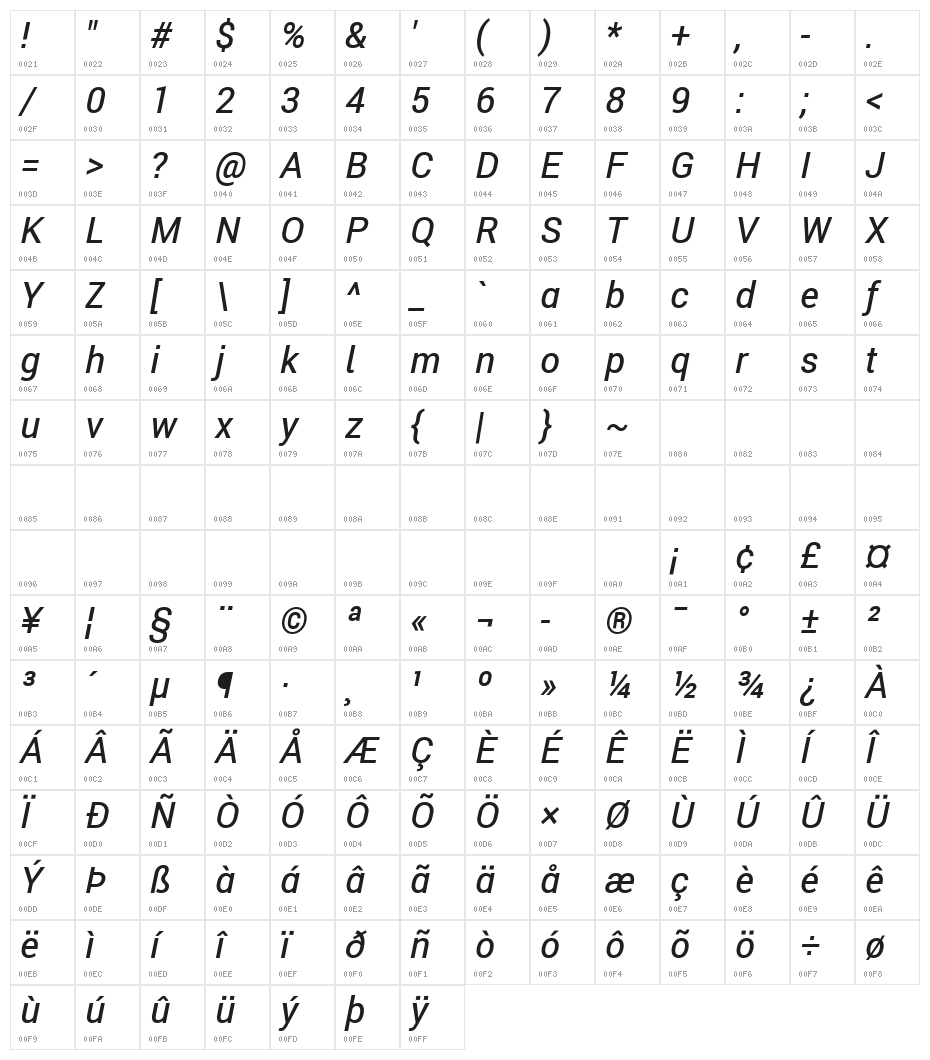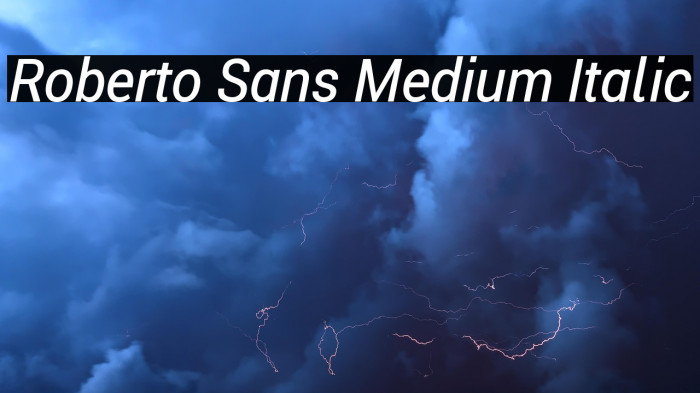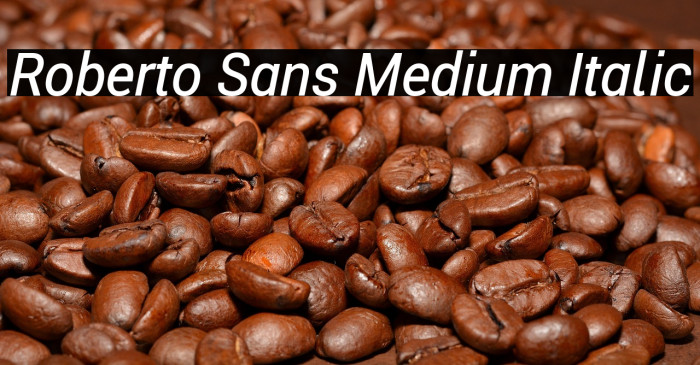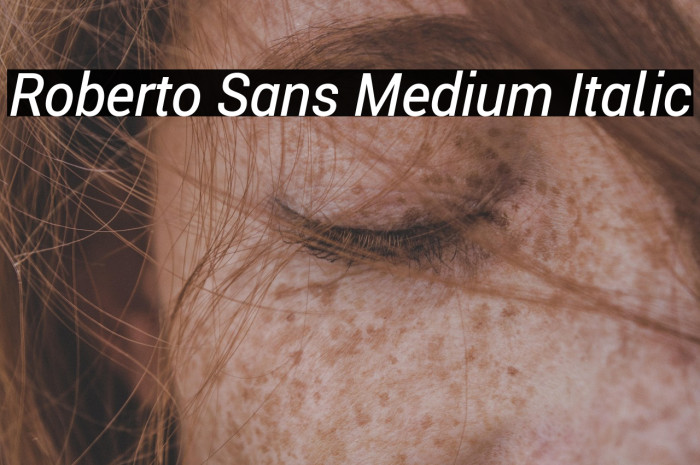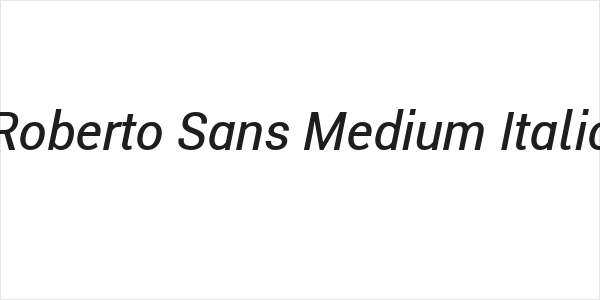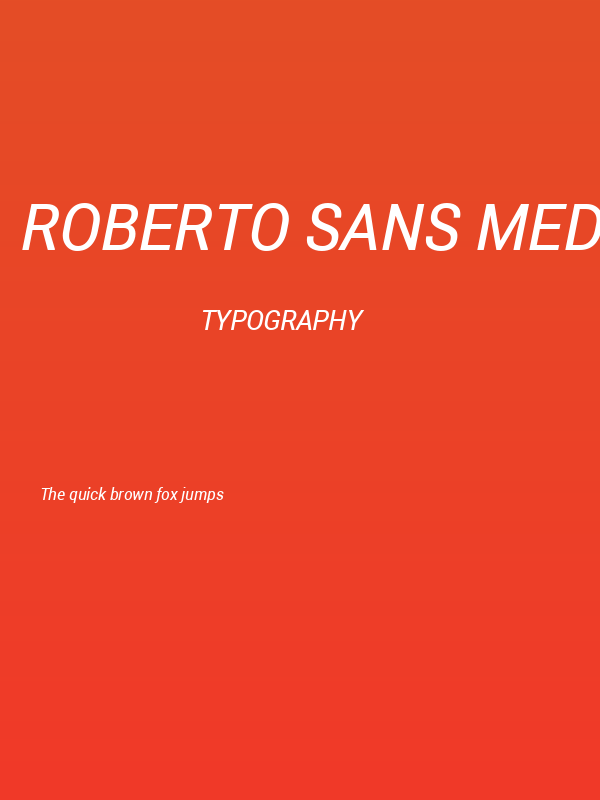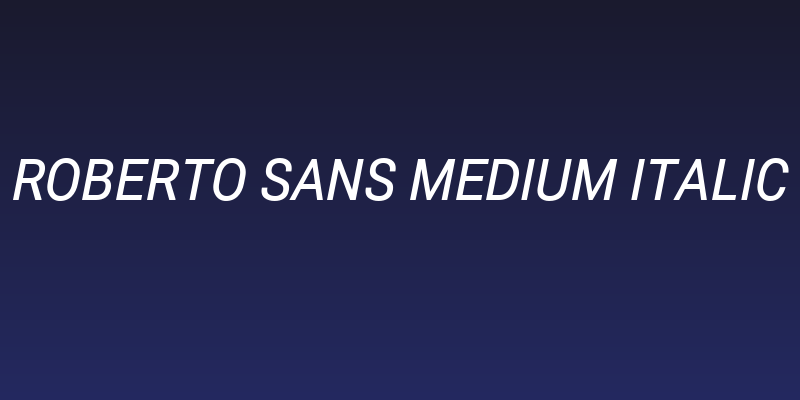
Roberto Sans Medium Italic Font
Roberto Sans Medium Italic Description
This font features a clean and modern sans-serif style with a medium weight, providing a balanced appearance that is both professional and approachable. The italicized form adds a sense of motion and elegance, making it suitable for dynamic and contemporary designs. The characters are well-proportioned with a slight slant, enhancing readability while maintaining a stylish look. The numerals and special characters are consistent with the overall design, ensuring uniformity across different text elements. This font is versatile, suitable for various applications where clarity and modern aesthetics are desired.
| Proposed Projects | Ideal for branding, advertising, web design, and editorial layouts where a modern and clean aesthetic is required. |